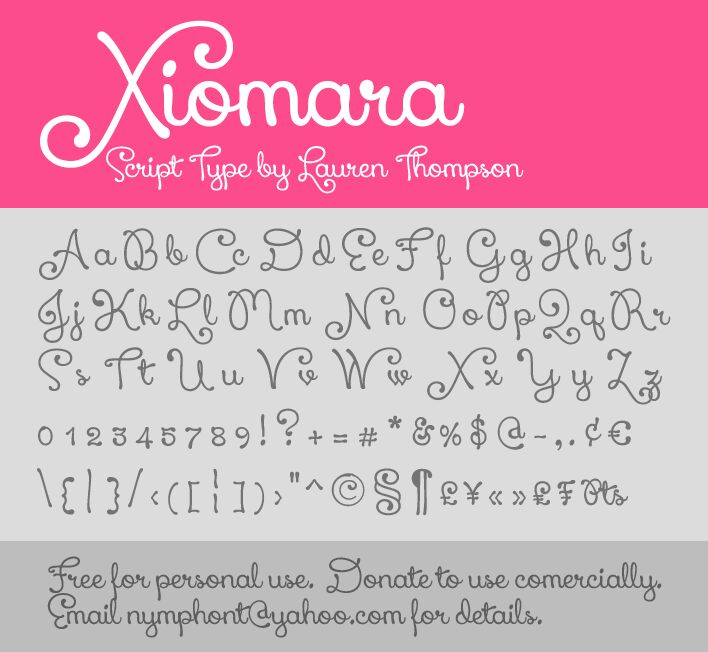
Xiomara by Lauren Thompson of Nymfont is a free calligraphic script with tall, looping forms and a light near-monoline stroke. Oversized curls sweep far above and below the main letter shapes, and rounded joins keep the flourishes soft. Teardrop terminals add spots of visual weight to the otherwise delicate line.
Wedding invitations are the clearest fit, since the long curves can echo floral borders, and the same elegance suits fragrance packaging and boutique branding. Fashion editorials and event posters also benefit from its sweeping ornament.
Xiomara
Lauren Thompson
A playful hand-made script by Lauren Thompson. Best used in typical settings with capitals used when appropriate, not intended for "all caps" use.